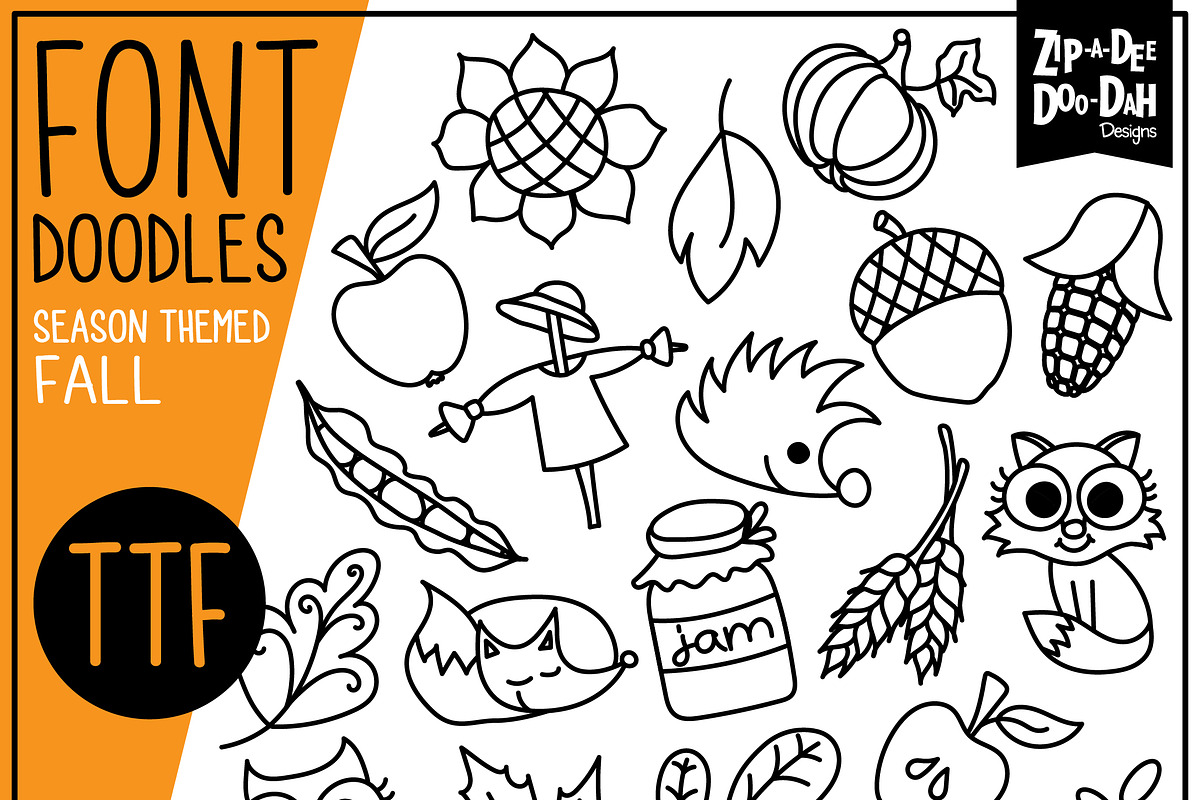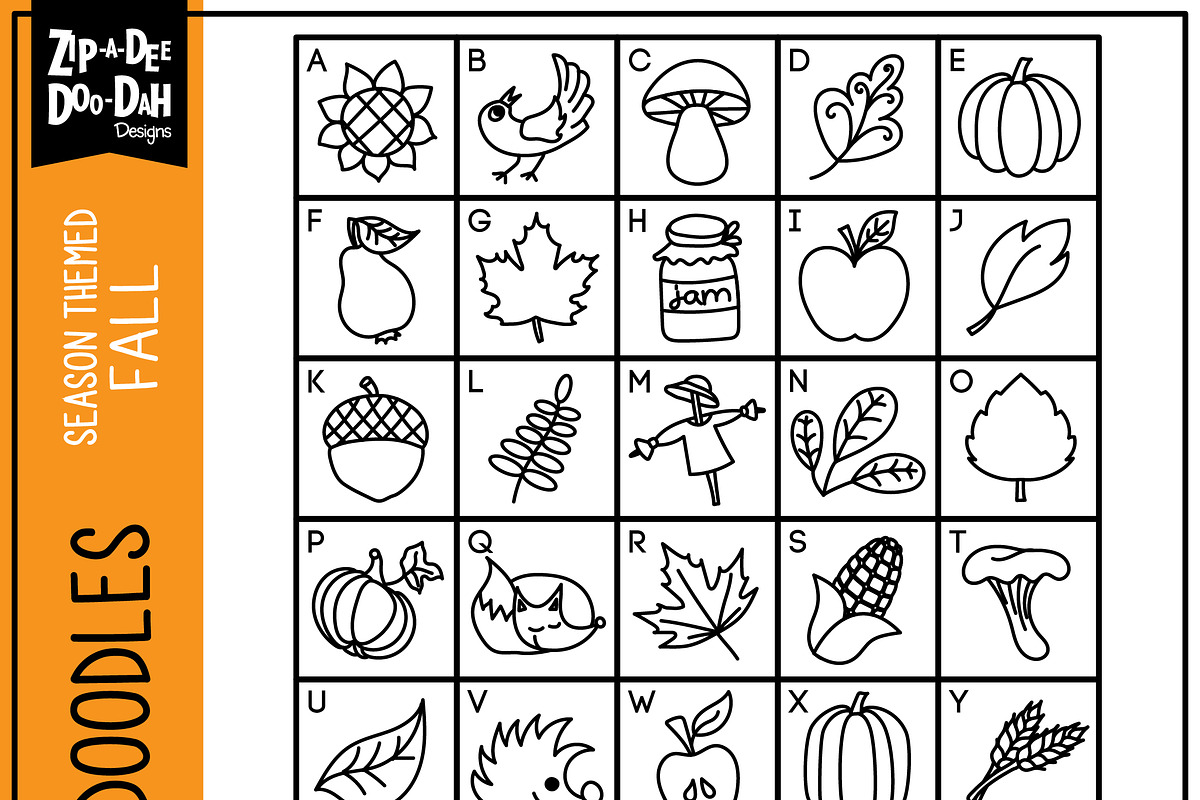
Fall Harvest Doodle Font
Add a bit of fun to your resources and products with this doodle font. This doodle font would be perfect for mystery icon sentences. Type out your sentence using this doodle font and have others try to solve with clues or even math equations. Everyone loves being detective! You can easily just use this font for the graphics too. Feel free to add color behind it to make it stand out even more.
This doodle font was hand drawn by myself that is really a TRUE TYPE FONT (TTF) so you will be able to add them to your font suitcase and type with them. This font has 35 doodles which are assigned to capital letters A-Z and numbers 1-9. This font is headache free too! All my doodle fonts have been tested by multiple people in multiple programs to ensure there are no errors or problem installing. Be sure to check out all the preview pages for details. Font come in a standard font file format (.otf) and the color is solid black. All my fonts are for personal and commercial use. The price already includes the commercial license for the small business. If you are a large business, please contact me and we can work out a rate.